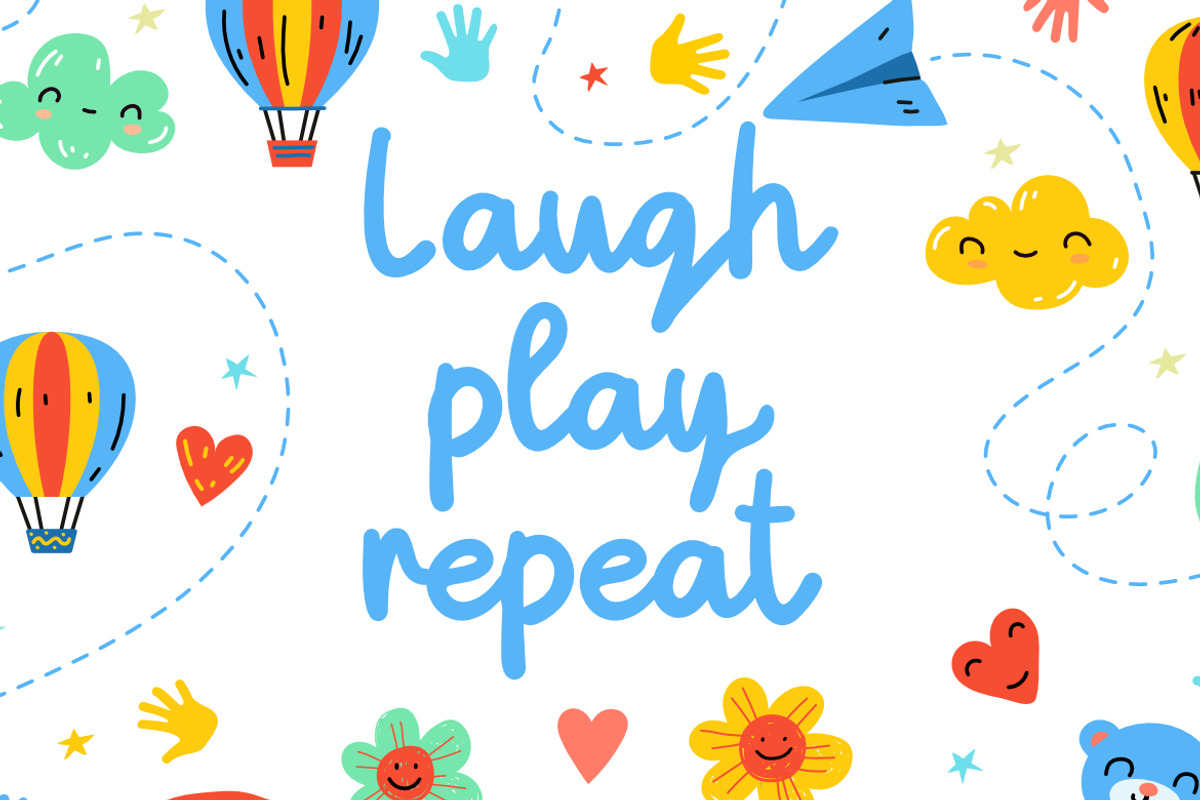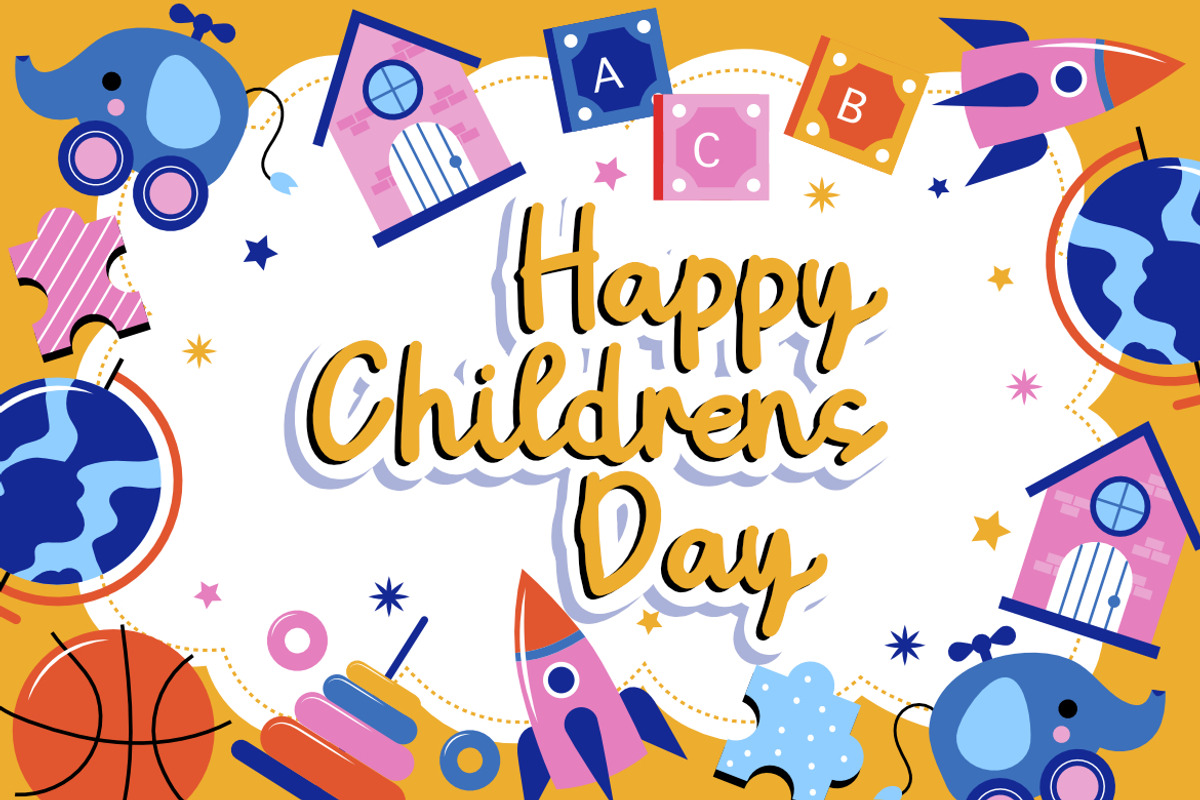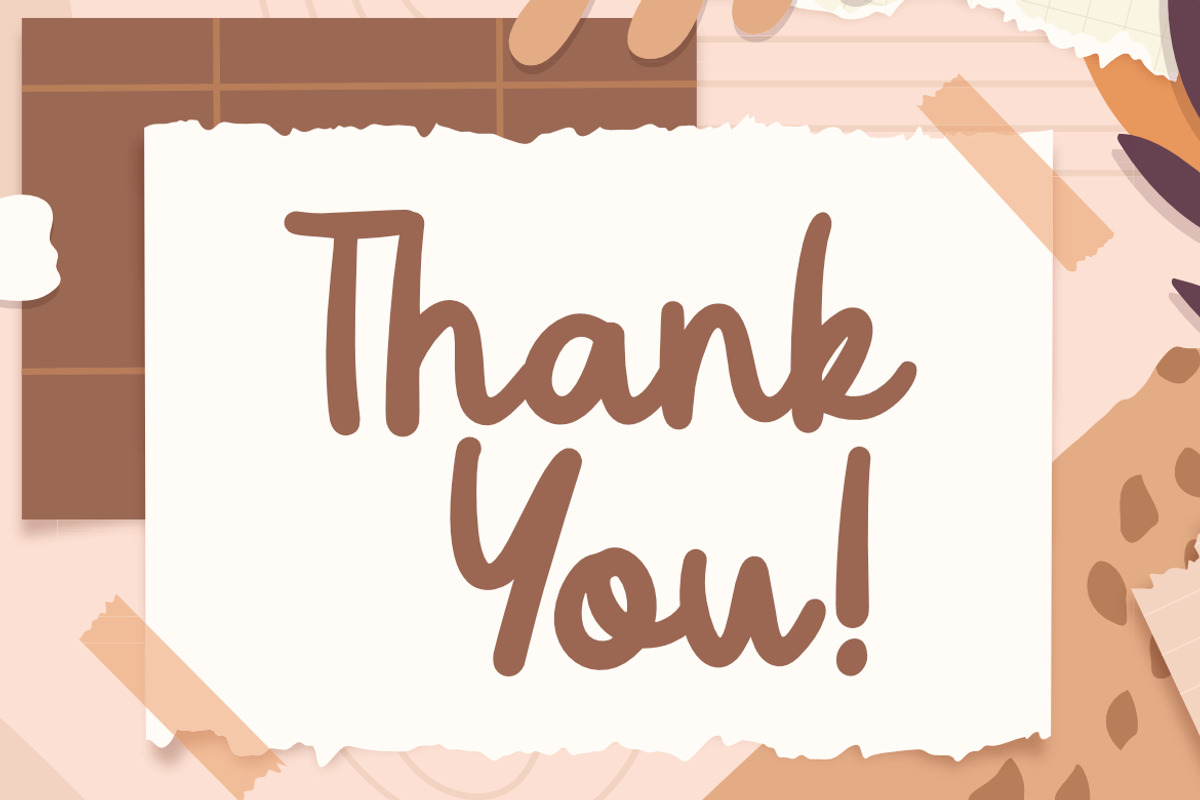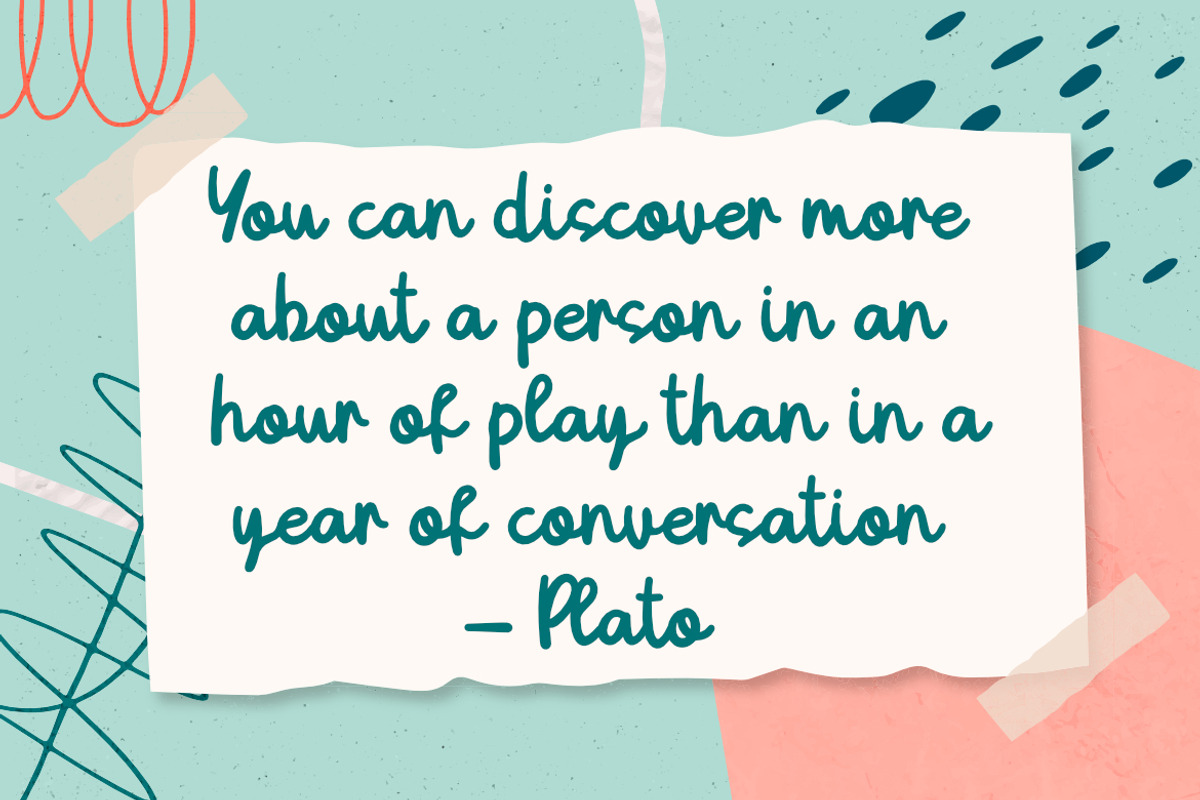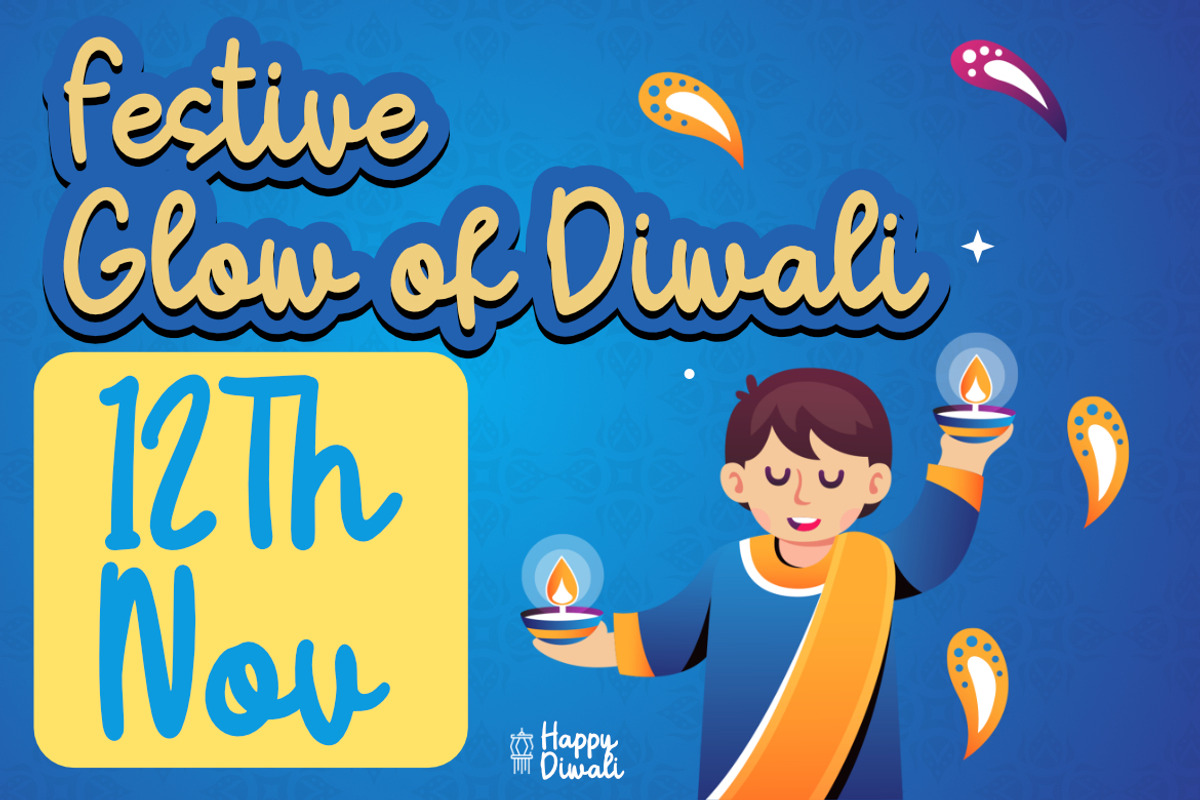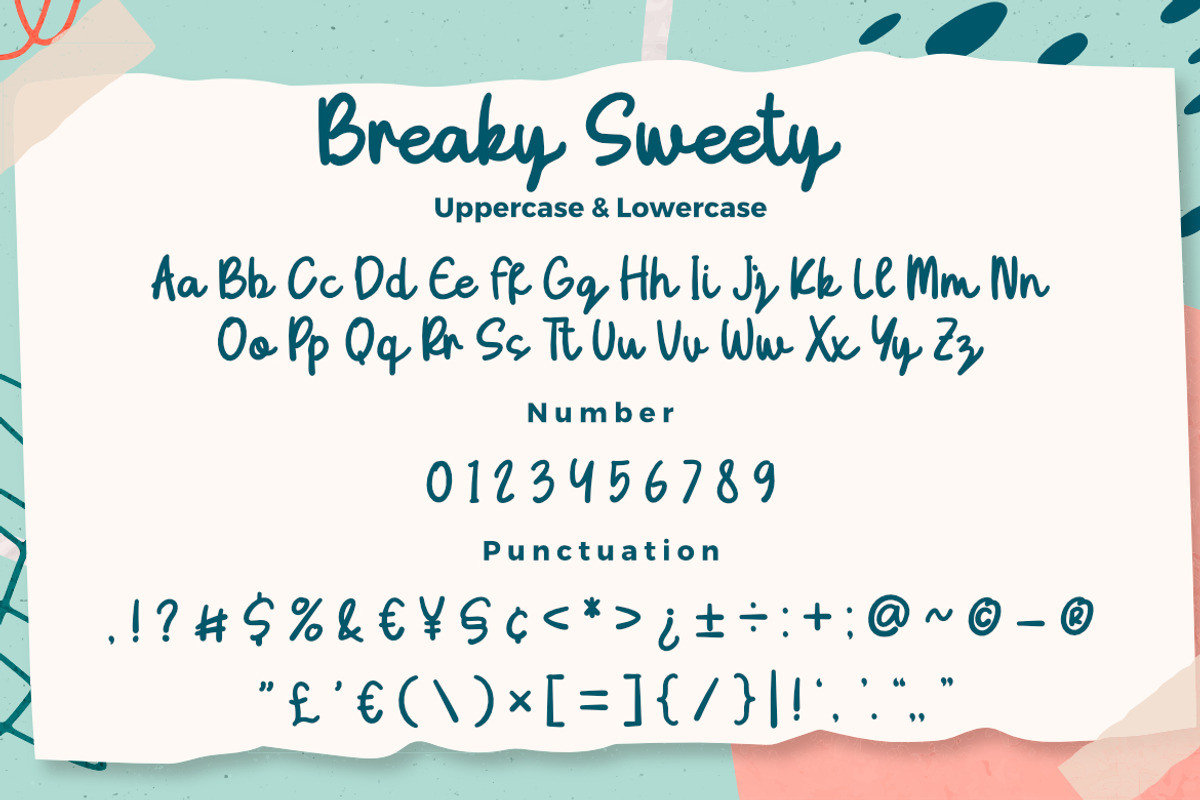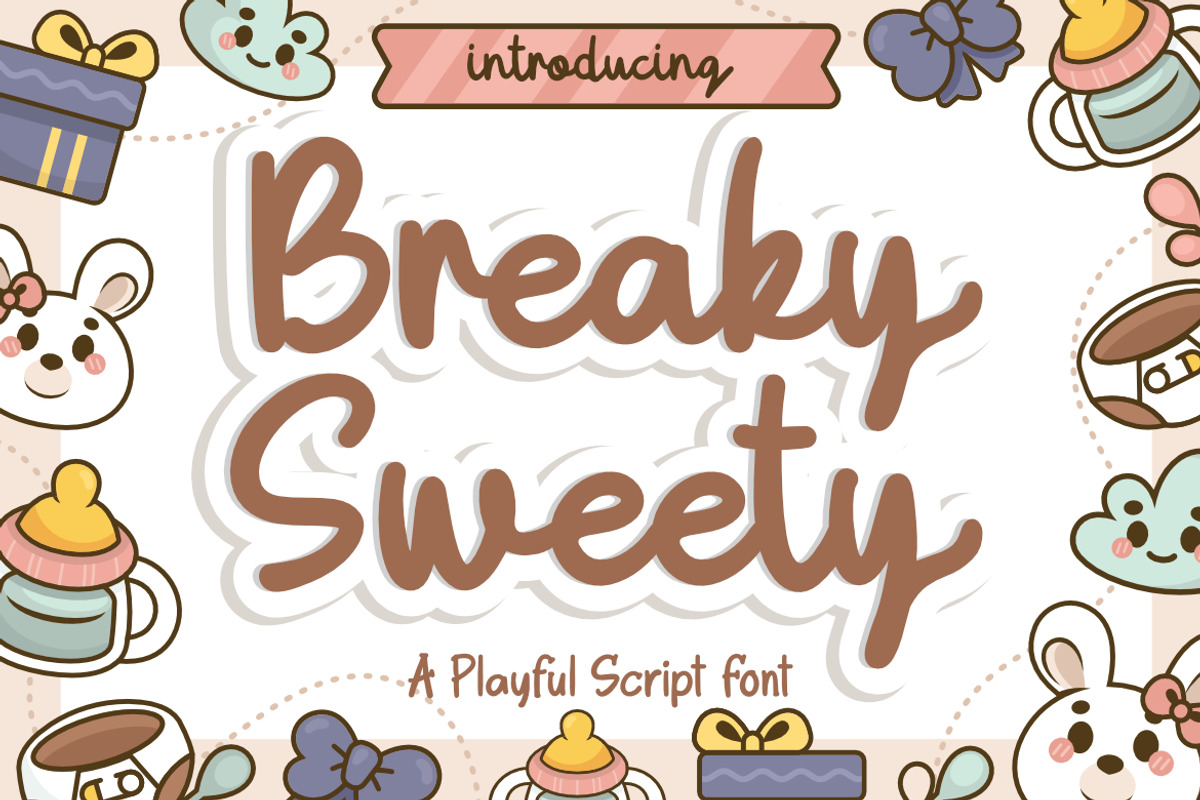
Breaky Sweety
Breaky Sweety a Playful Script Font, This font is made with a high premium quality level which you can use as flyers, quotes, posters, banners, packaging, merchandise, logotypes and much more.